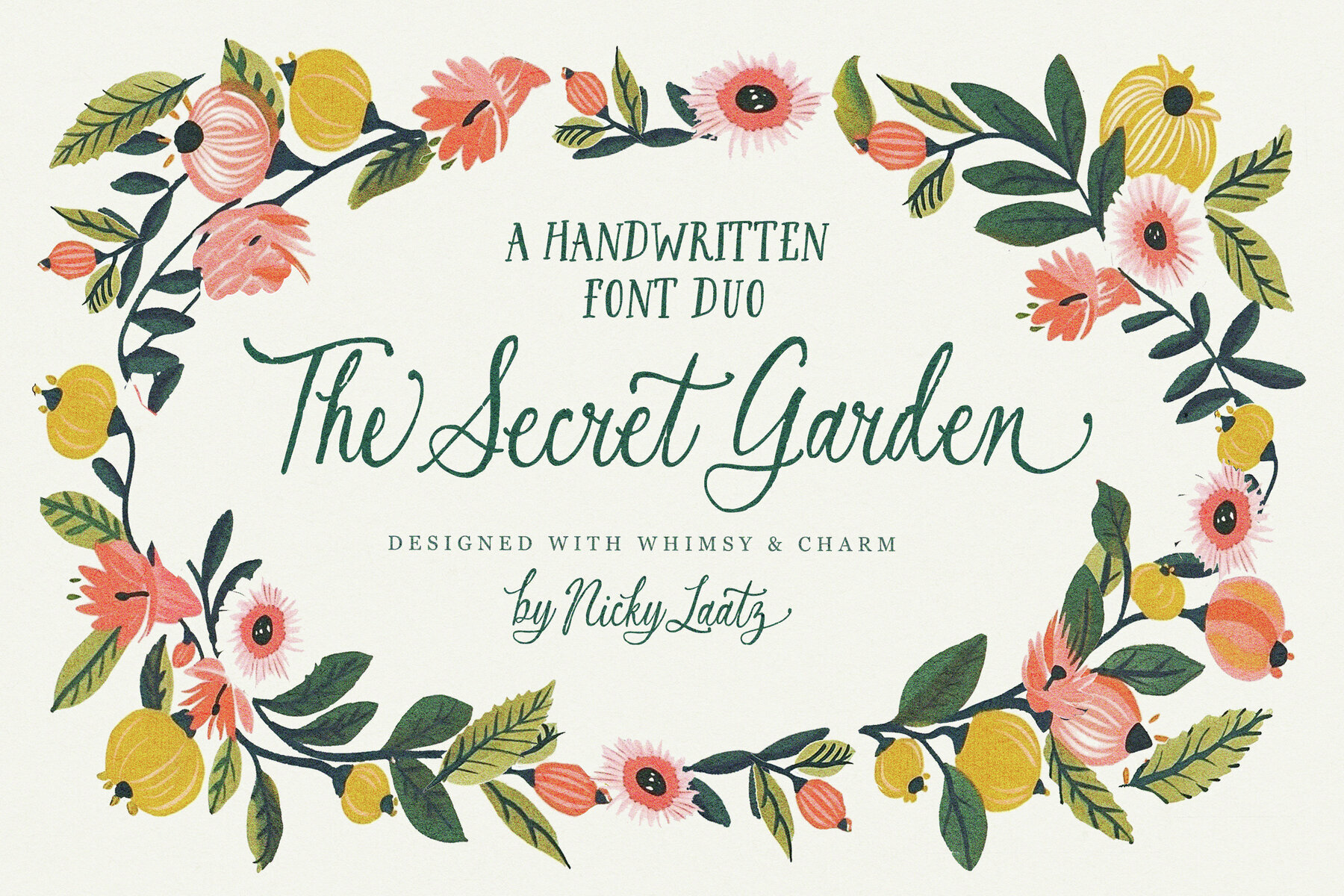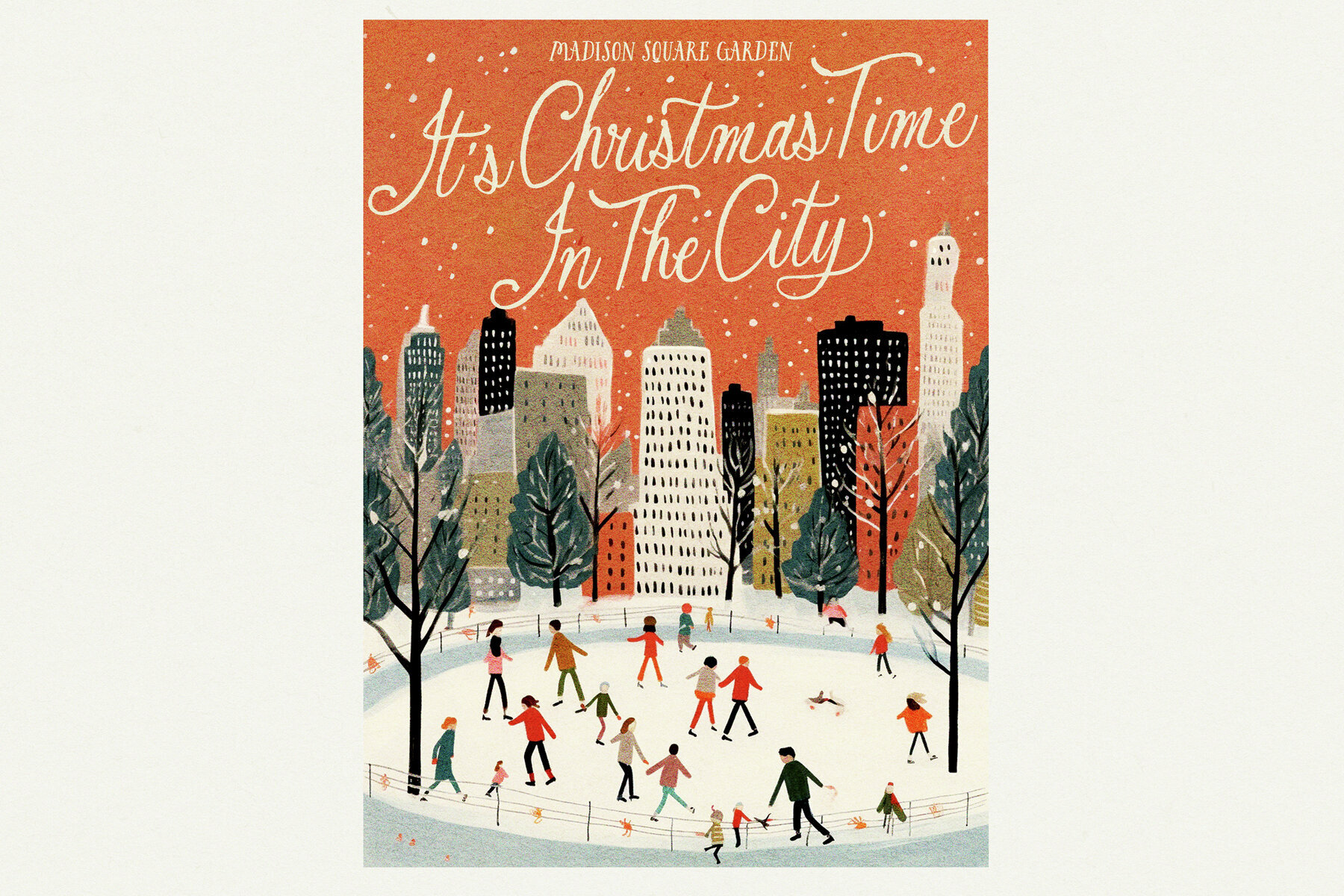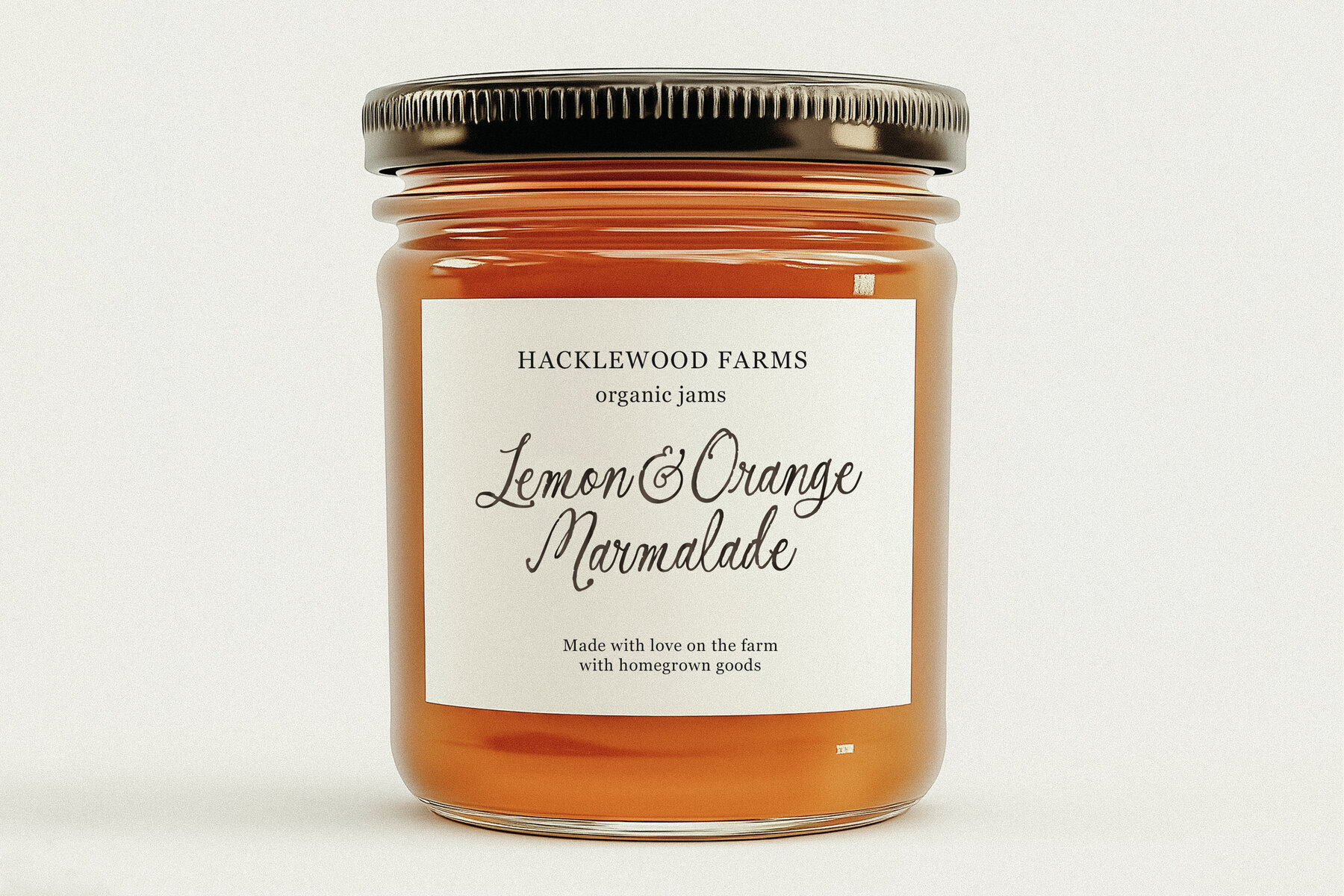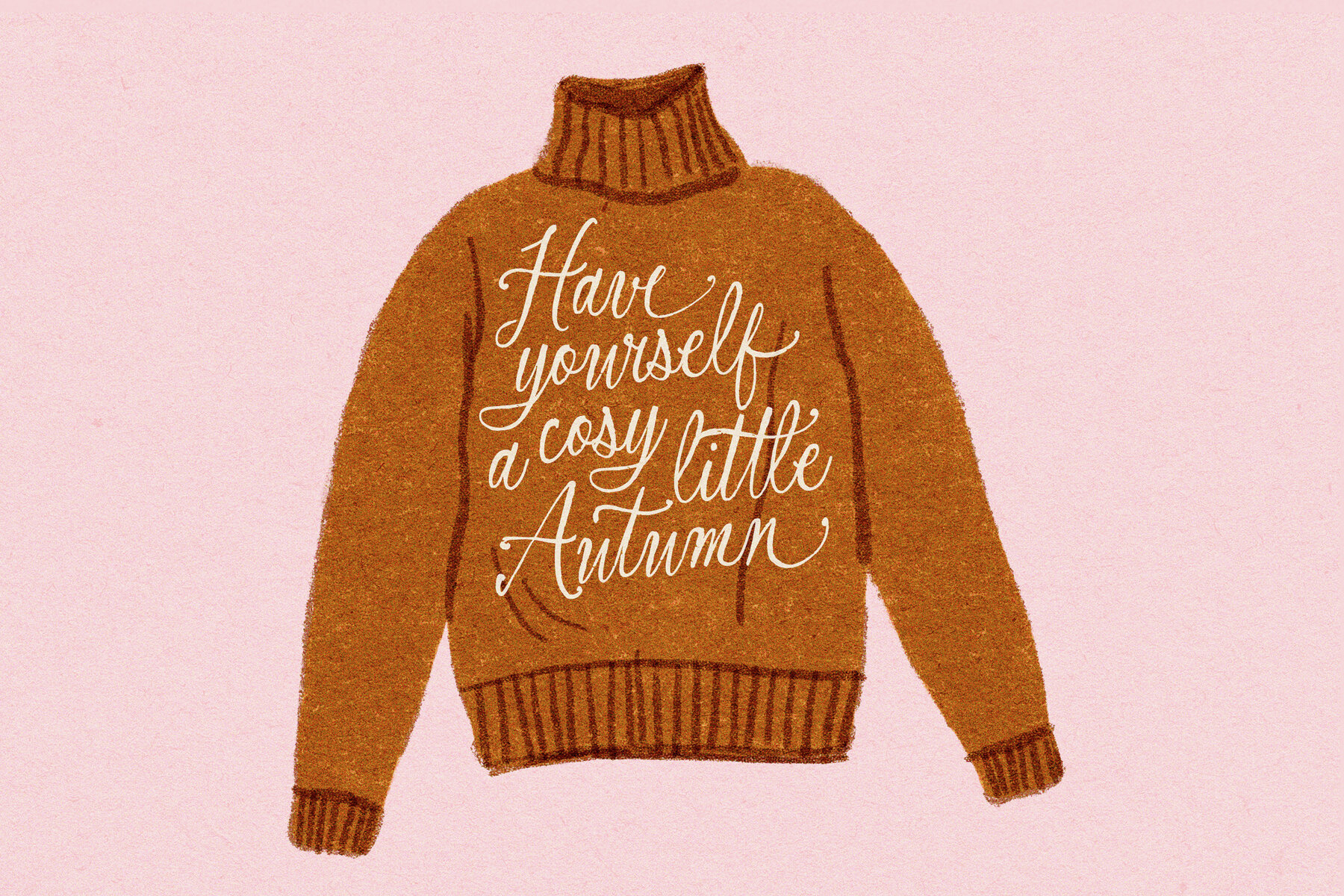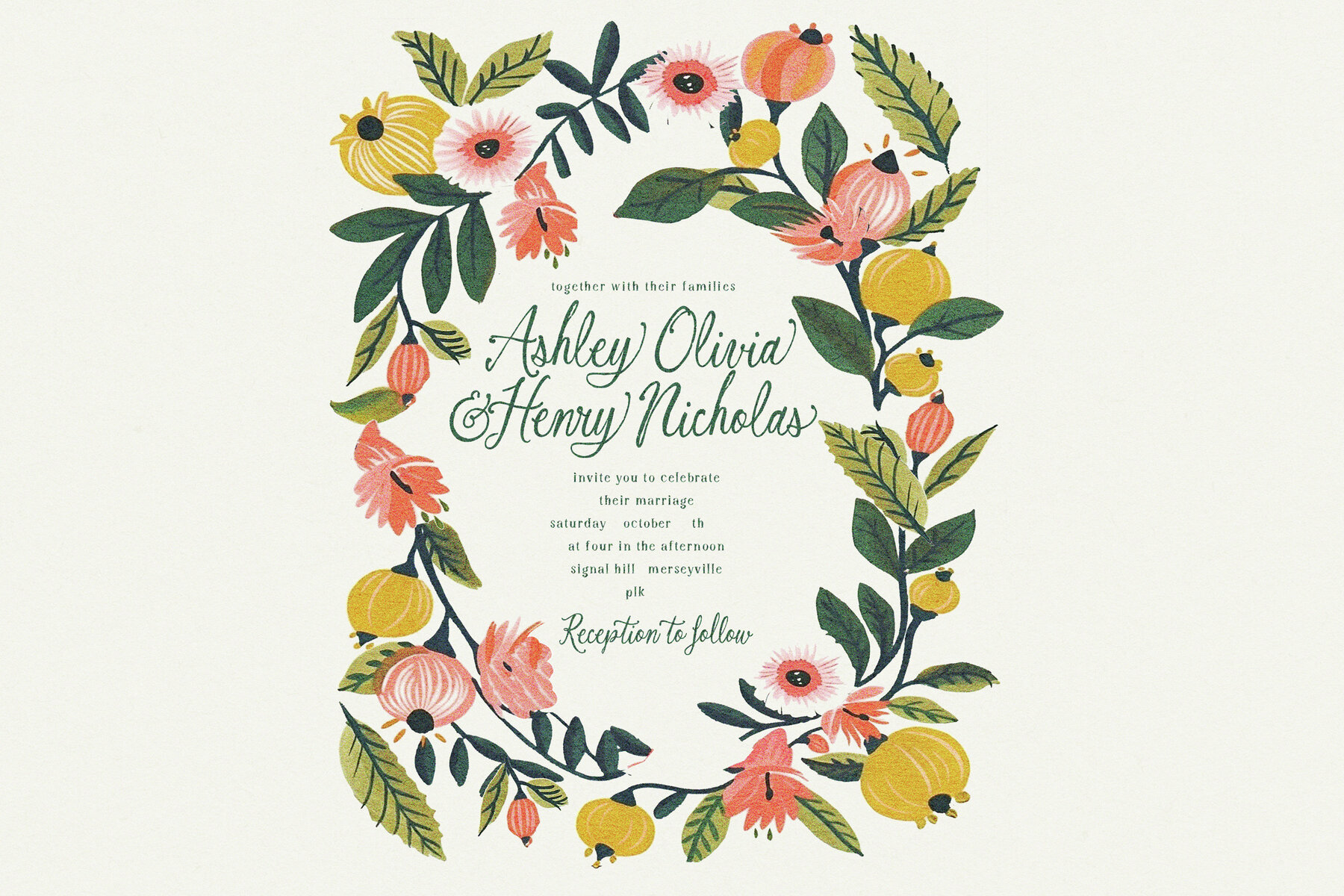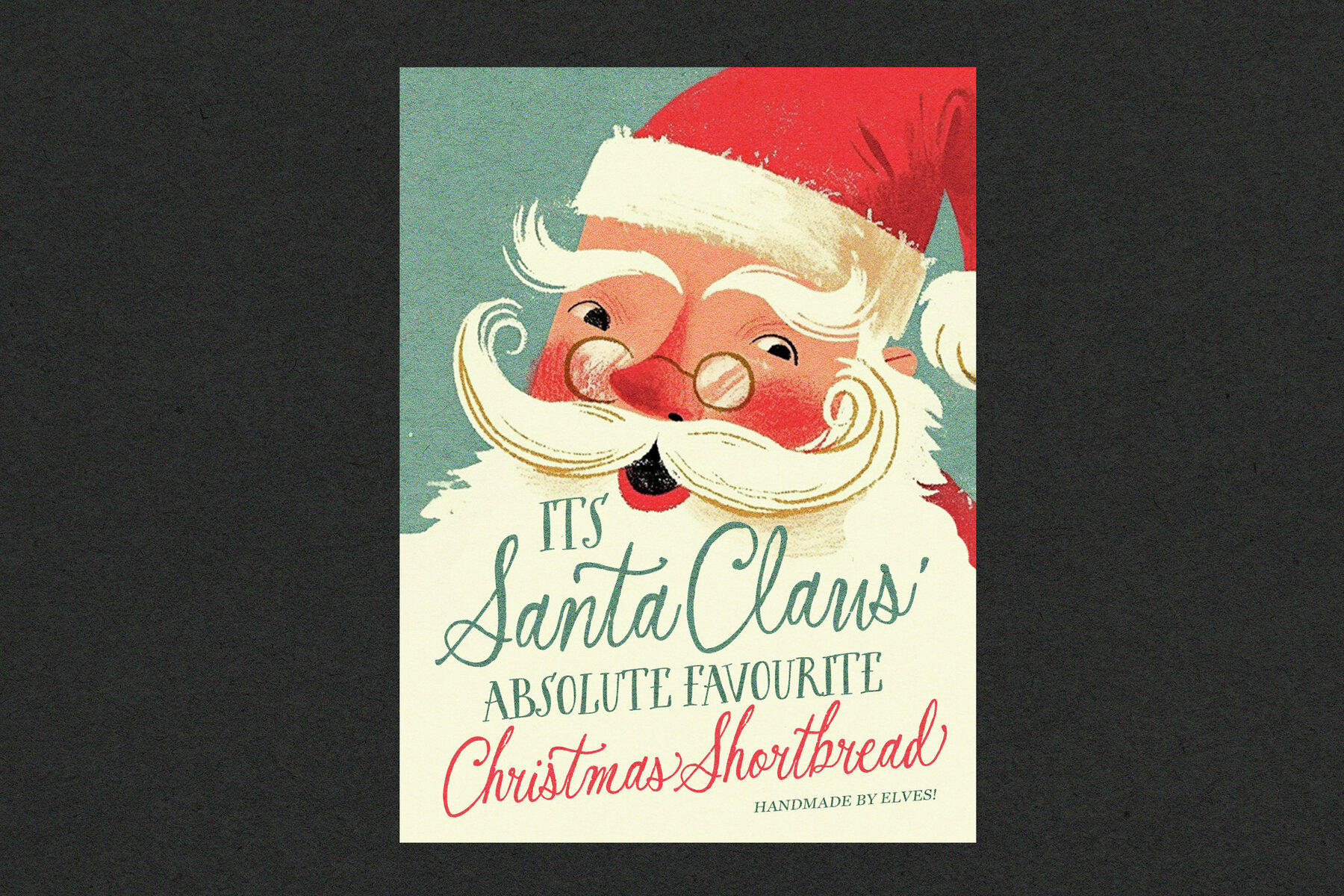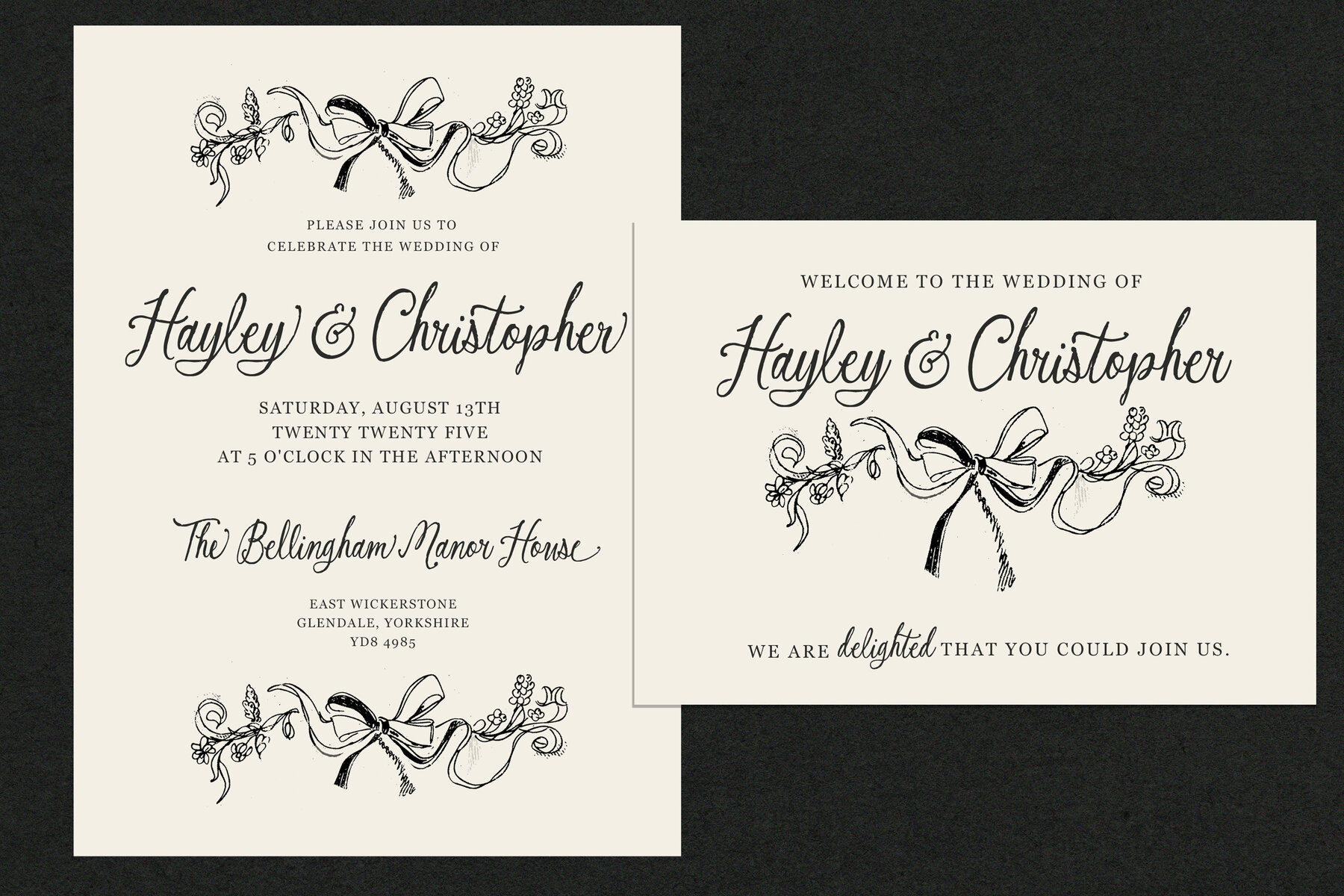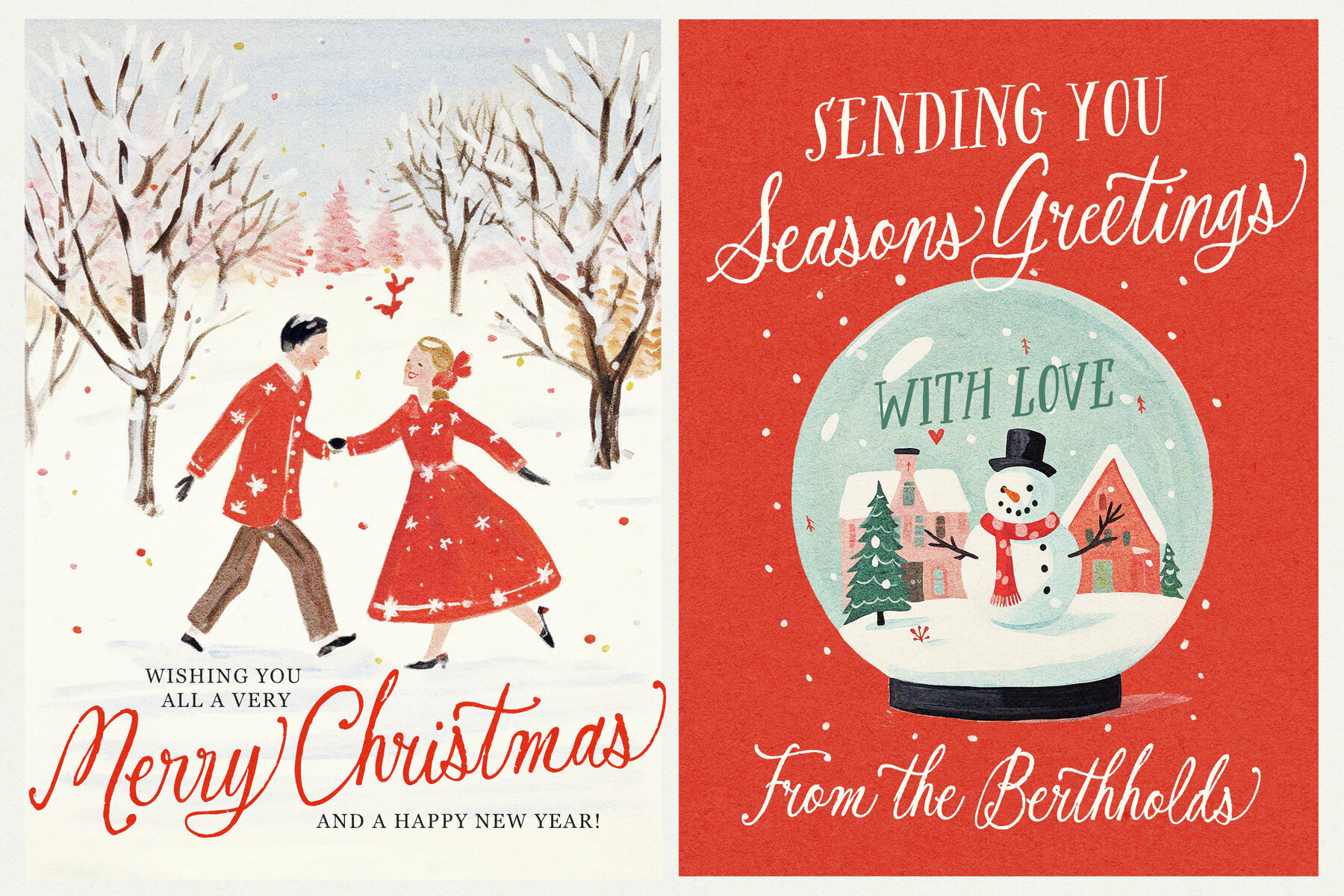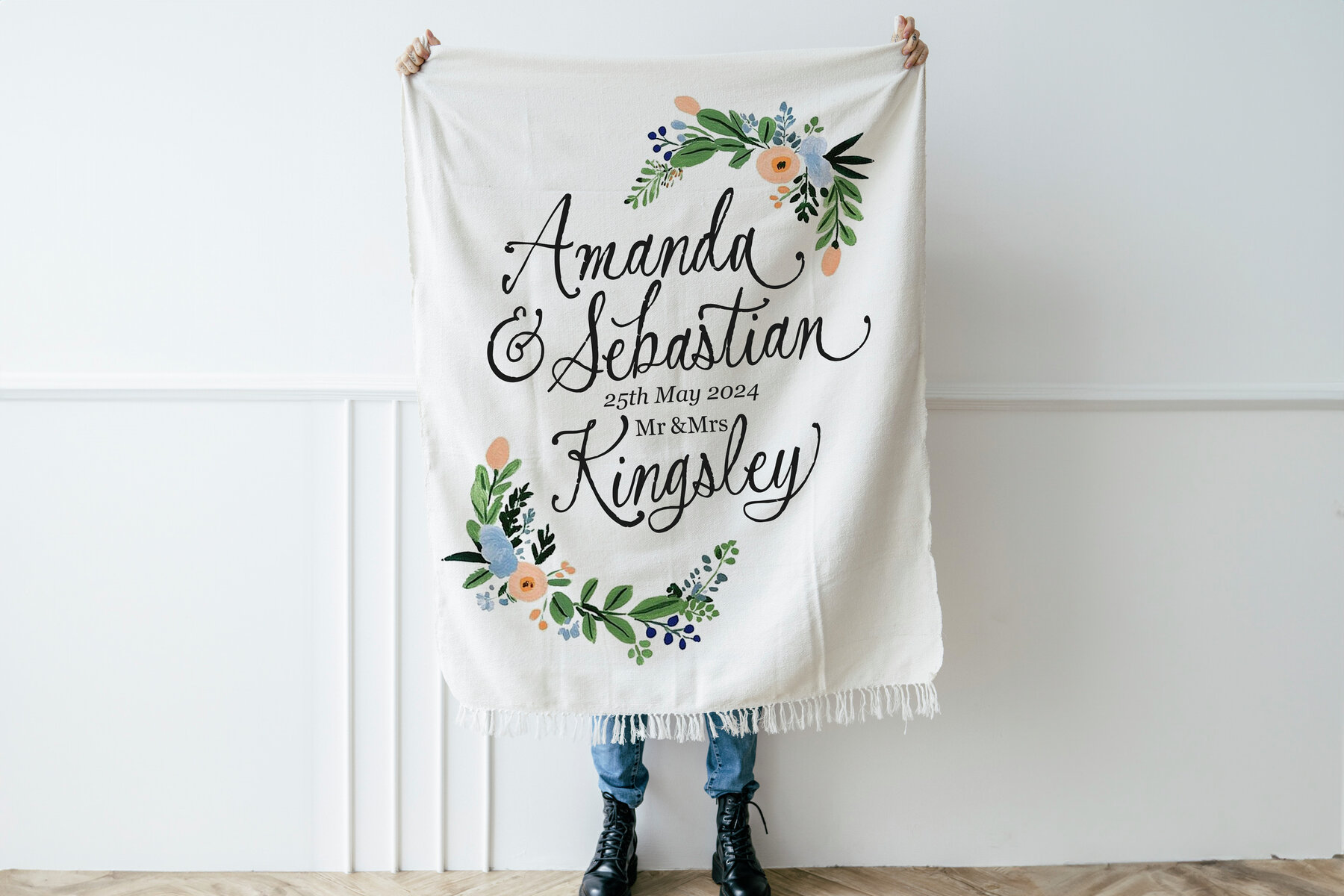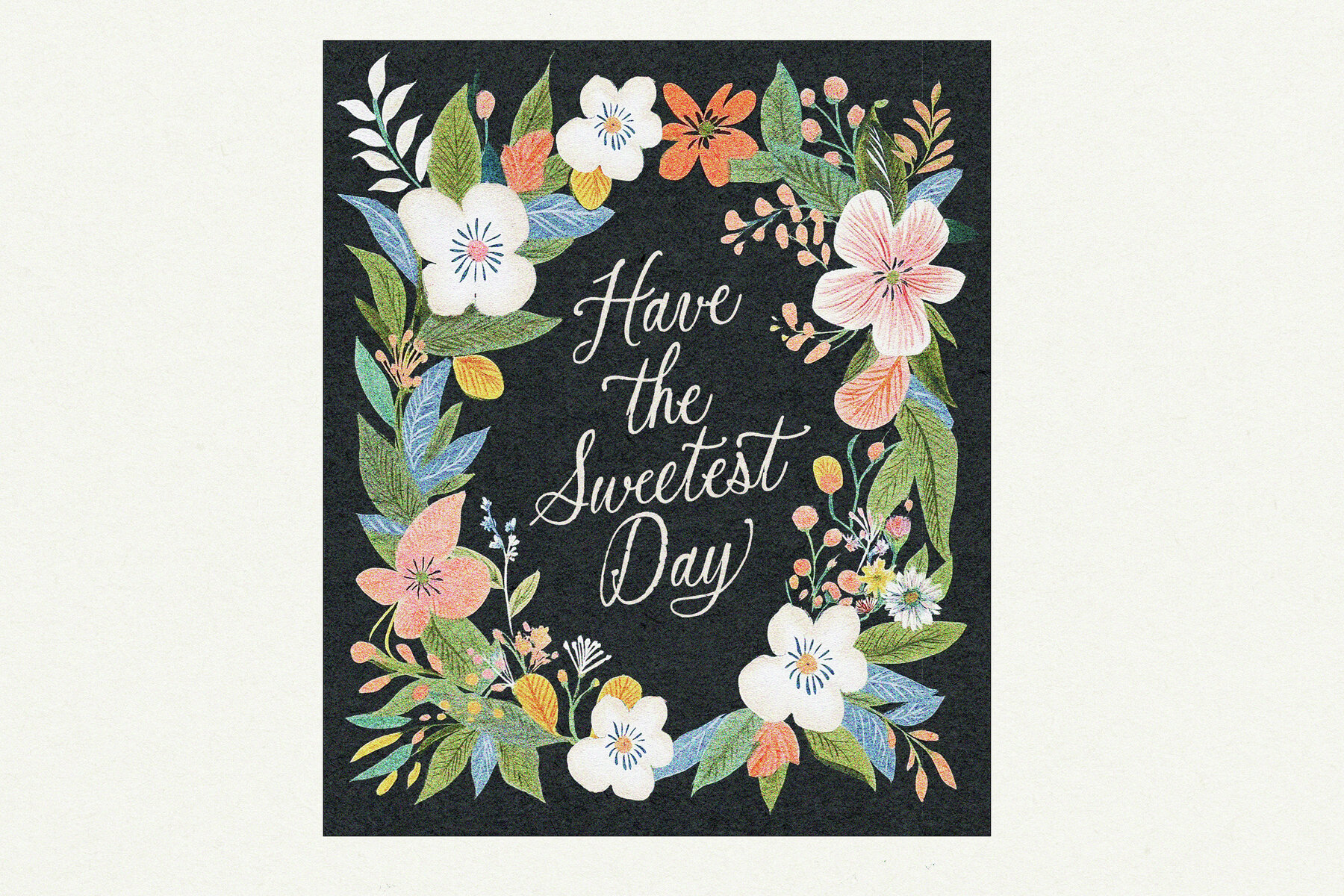
The Secret Garden Font Duo
Secret Garden Script Regular
Secret Garden Serif Regular
Secret Garden Serif Heavy
Secret Garden Script Variant1
Secret Garden Script Variant2
Say hello to the new Secret Garden Font Duo! Full of whimsy and wonder, playful, with a touch of old world elegance - morphing beautifully into your illustrated works, greeting cards, rustic labels, typography designs, Invites and so much more. The Duo consists of a fanciful rough-edged, hand-lettered Script and a matching whimsical Serif. The Script has been given a lovely selection of 90 letter alternates, swashed end letters, and double letter ligatures, to add even more delight and authenticity to your designs. This little duo is PUA encoded - which means if you don't have access to any special Opentype capable software, you can still access the extra characters by copying and pasting from your Fontbook or Charmap Apps. The Serif comes in a hand ' Heavier' version with less contrast , just incase you's like to use it at smaller sizes, where it remains more legible than the Regular version. The Script also has two optional slight variants, differeing slightly in height and slant to give a stlightly different feel. Language support is : Cornish, Corsican, Danish, English, Filipino, French, Friulian, Galician, German, Indonesian, Low German, Luo, Luxembourgish, Norwegian Bokmål, Norwegian Nynorsk, Portuguese, Romansh, Spanish, Swedish, Swiss German. I hope you enjoy!